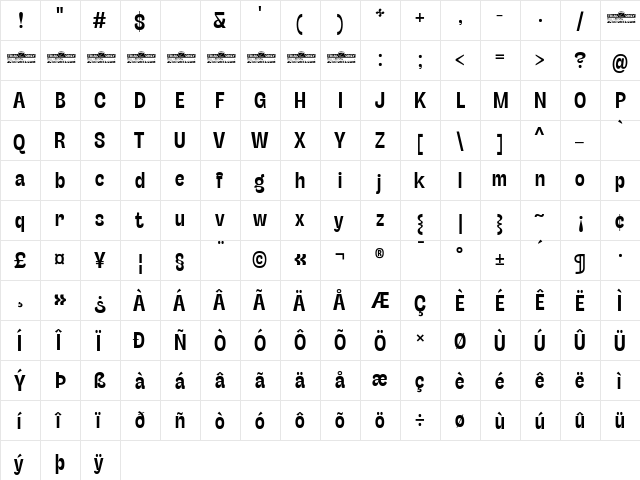
Stinger Slim Trial Bold Font Preview
Stinger Slim Trial Bold
Stinger Slim Trial Bold Font Details
| Foundry | Studio Kmzero & Zetafonts |
| Designer | Cosimo Lorenzo Pancini |
Design Context for Stinger Slim Trial Typeface
Stinger Slim Trial is a composed and adaptable typeface that performs quietly and consistently across a wide range of design contexts. Its bold stroke weight gives it real presence on the page.